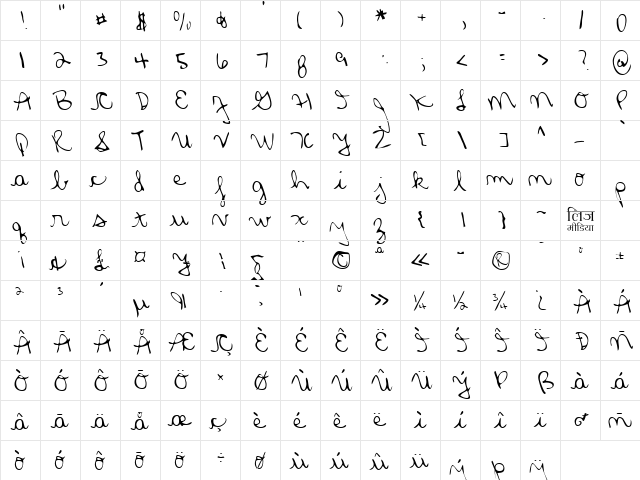
LEHN099 Regular
Design Context for LEHN099 Typeface
LEHN099 is a composed and adaptable typeface that performs quietly and consistently across a wide range of design contexts.